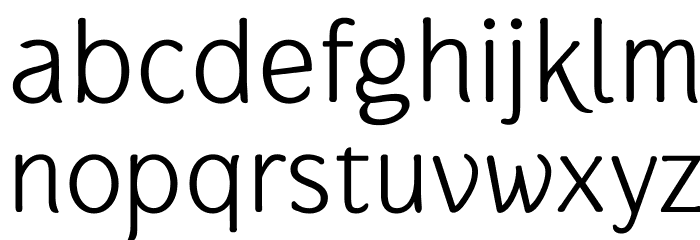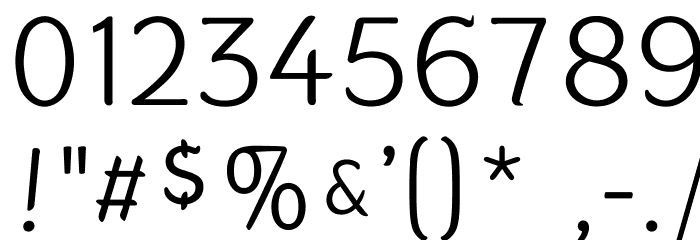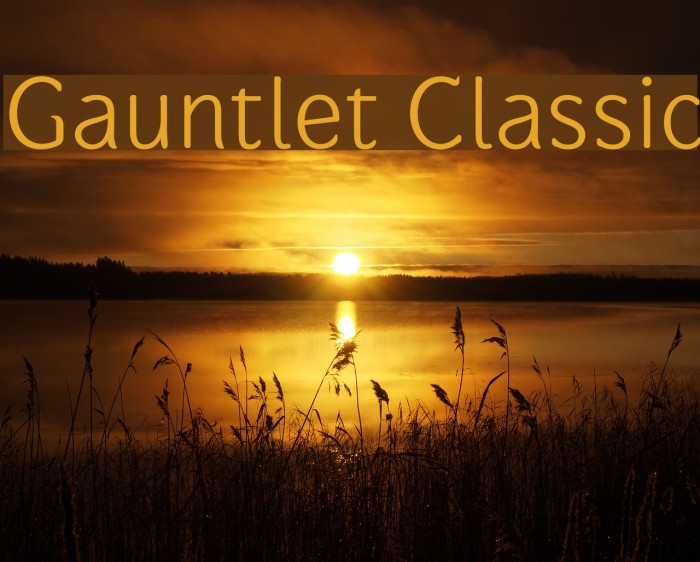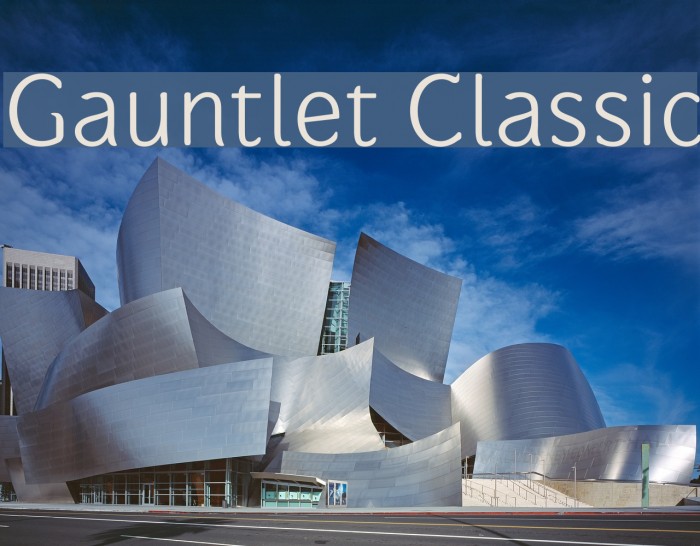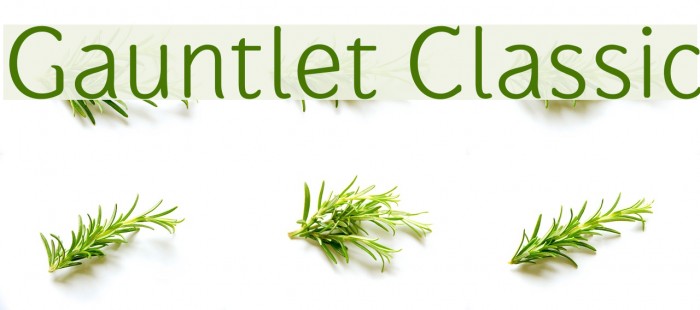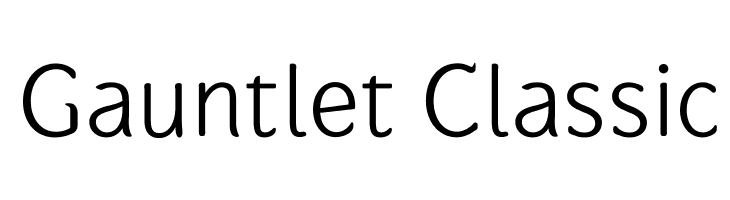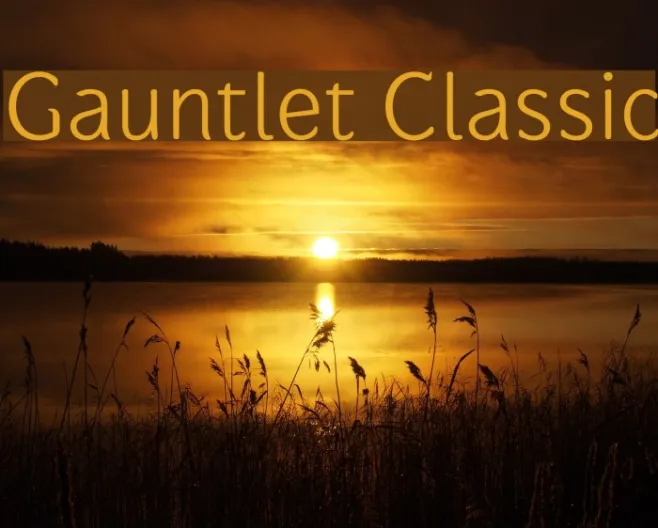
Gauntlet Classic Font
This font features a clean and modern sans-serif design, characterized by its smooth curves and uniform stroke width. The uppercase letters are slightly taller than average, giving them a commanding presence, while the lowercase letters maintain a consistent height that complements the overall aesthetic. The numerals are clear and legible, making them suitable for various applications. Special characters are well-defined, ensuring versatility in usage. The font's simplicity and clarity make it ideal for both digital and print media, providing excellent readability across different sizes and formats.
A modern sans-serif font with smooth curves and uniform strokes.
- Proposed Projects: Ideal for branding, web design, advertising, and editorial projects.